Transform your Valentine message into a work of art. Our AI-powered tool helps you craft heartfelt Valentine's Day messages, design personalized Valentine letters, and generate unique valentine's day card messages with stunning romantic fonts in seconds.
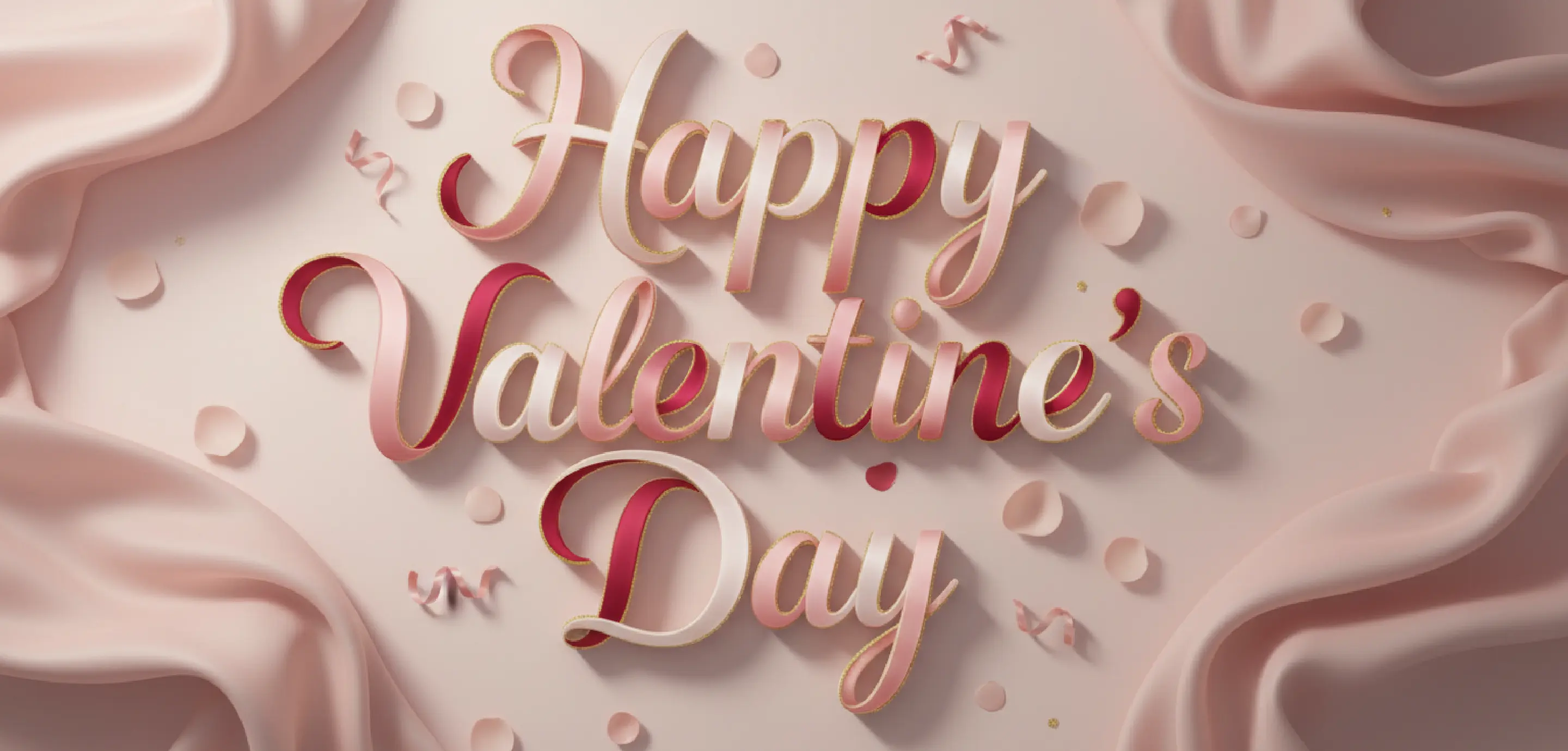
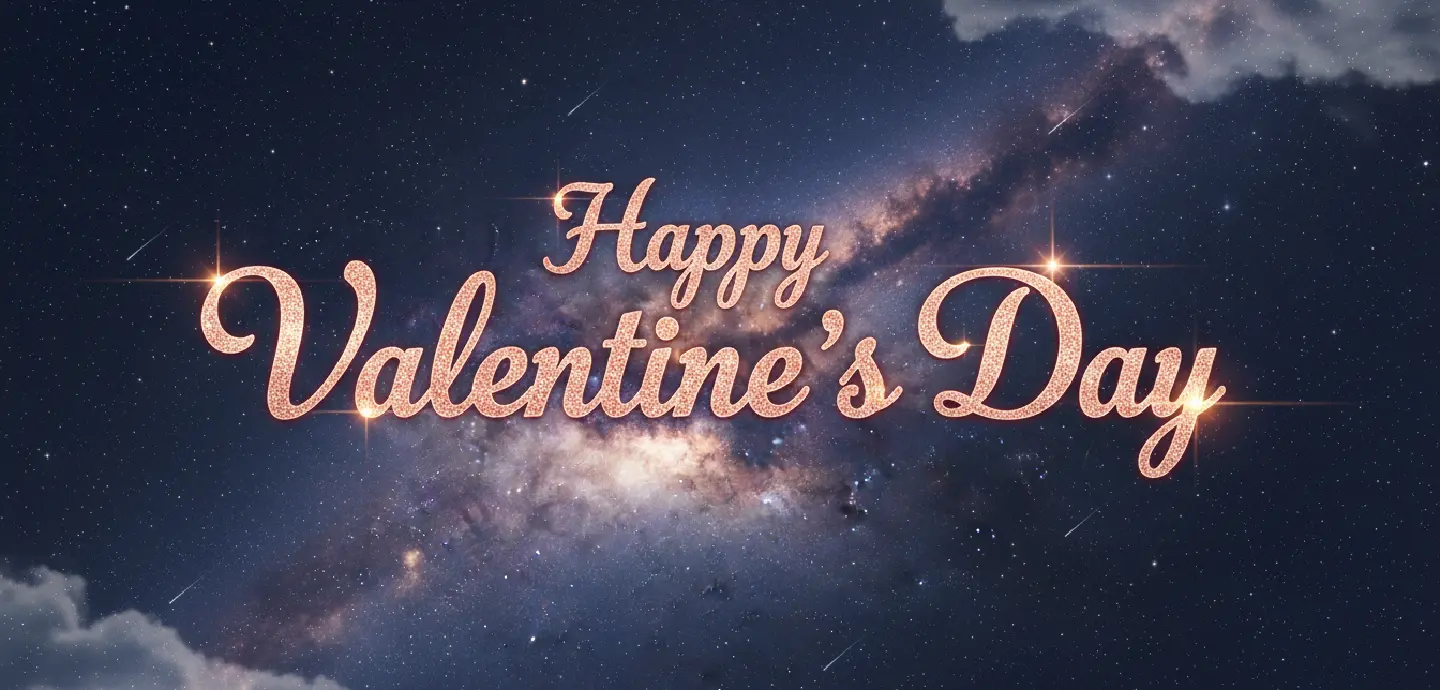
Bring your romantic ideas to life with beautifully crafted font styles that match classic Valentine message themes—elegant calligraphy, soft script, rose motifs, and cozy handwritten aesthetics. Our AI generator makes it effortless to explore and customize unique Valentine's Day messages, helping you design the perfect Valentine letter or valentine's day card messages with endless creative possibilities.
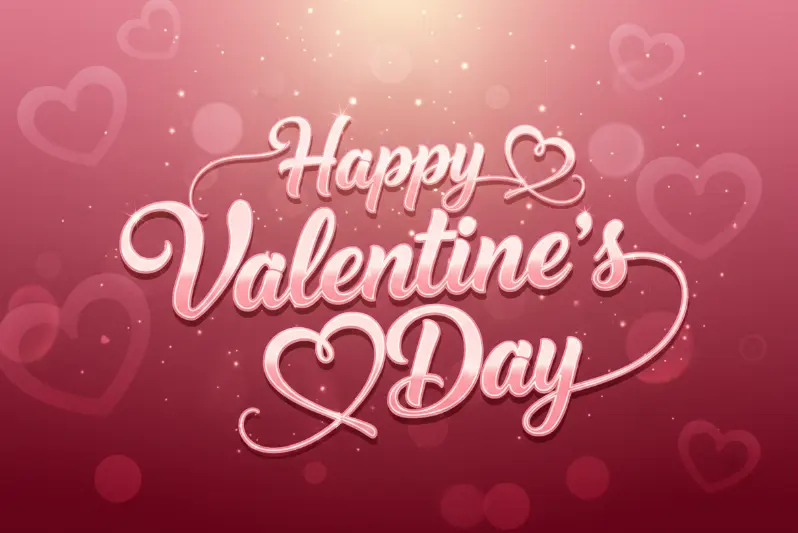
A radiant 3D script with candy-pink glossy textures and glowing heart accents. This playful style is perfect for a vibrant Valentine message, helping you design eye-catching valentine's day card messages for social media and digital ads.
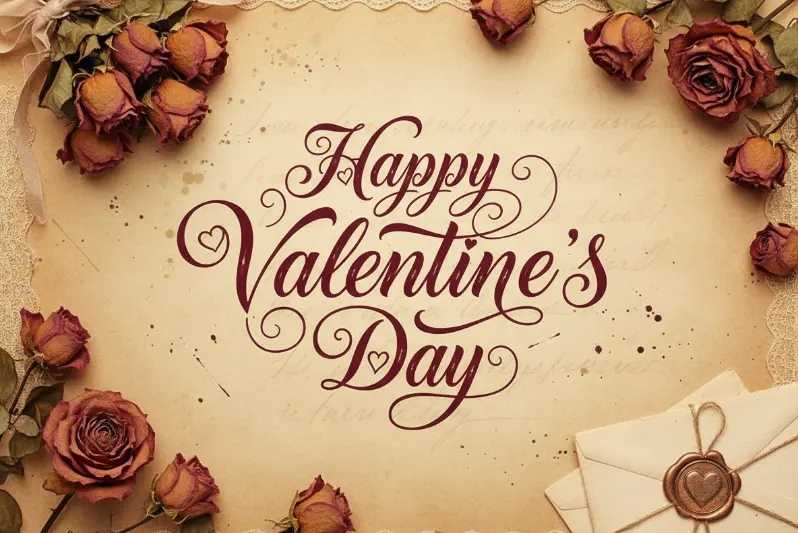
An elegant, ink-textured calligraphy script inspired by vintage romance. It is the ideal choice for a sincere Valentine letter, bringing a timeless and classic touch to all your Valentine's Day messages and printed stationery.
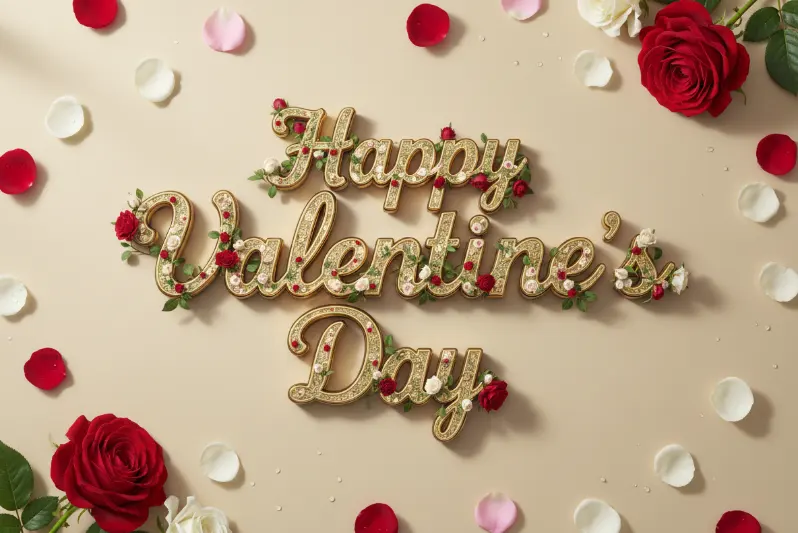
A premium 3D gold-textured font elegantly entwined with blooming rose vines. Elevate your Valentine's Day messages with this luxurious style, perfect for creating high-end valentine's day card messages and premium gift packaging.
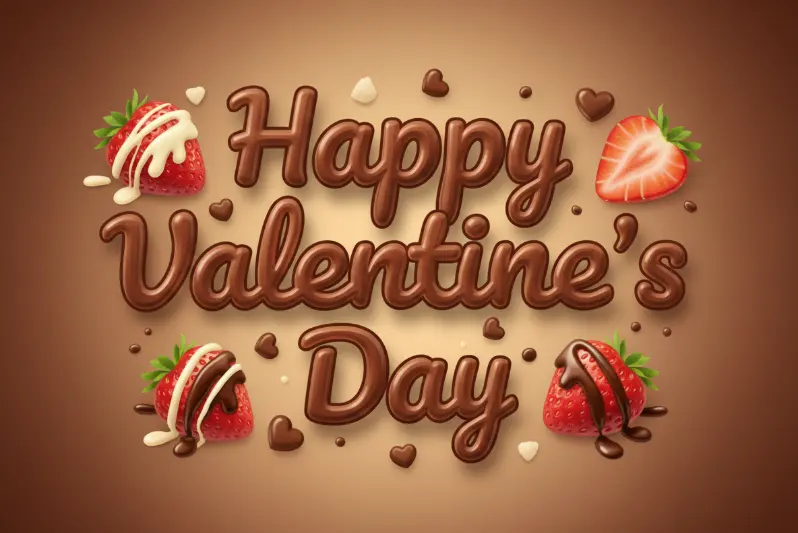
A delicious 3D font crafted with smooth melting chocolate and realistic strawberry accents. This tempting style is perfect for a sweet Valentine message, adding a mouth-watering touch to your valentine's day card messages and dessert menus.
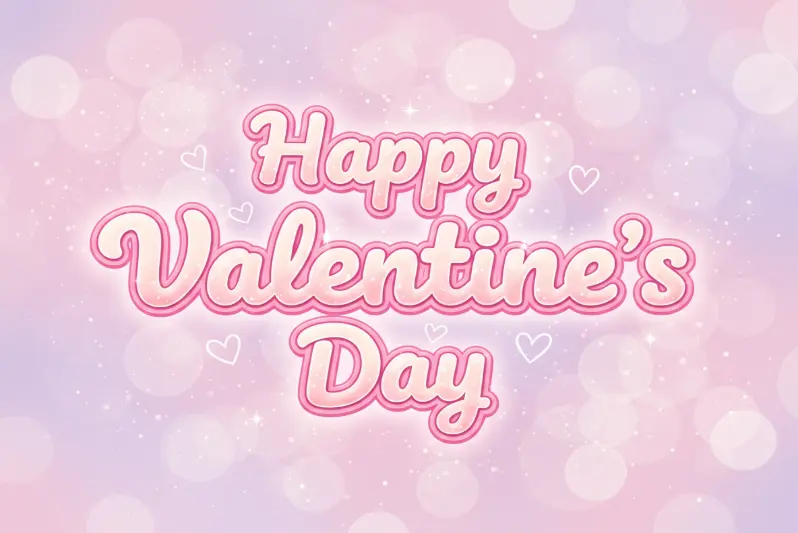
A whimsical 3D font featuring soft pink-to-purple gradients and a playful bubbly texture. It’s a fantastic choice for cheerful valentine's day card messages, helping you create a dreamy and creative Valentine message for any digital project.
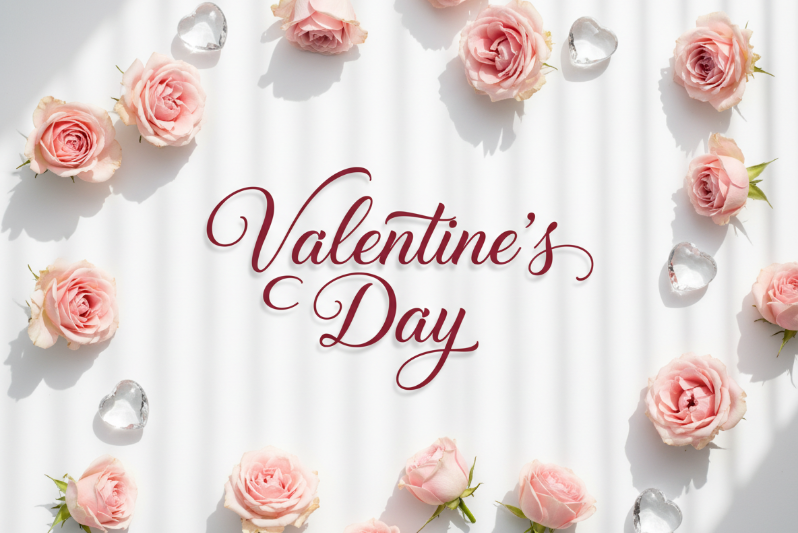
A minimalist, elegant script font surrounded by fresh pink roses. This bright and clean style brings natural beauty to every Valentine letter, making it an ideal choice for sophisticated Valentine's Day messages and modern lifestyle blogs.
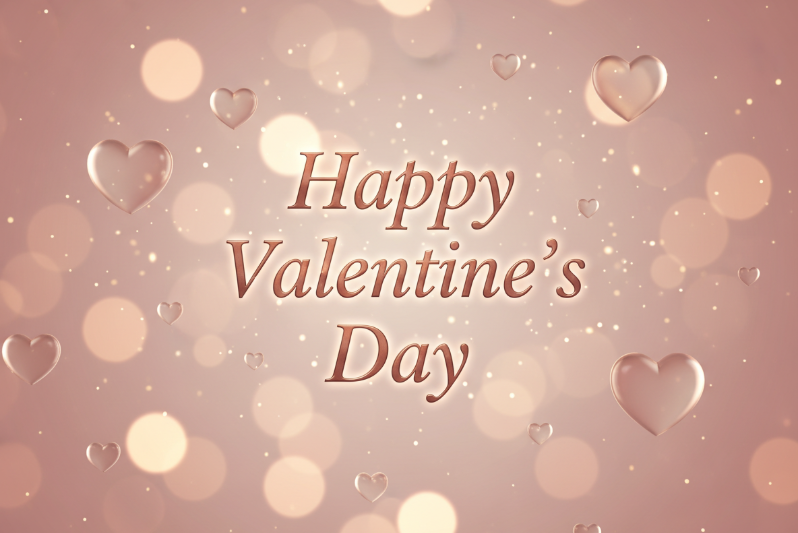
A luxurious rose-gold font surrounded by translucent crystal hearts and soft bokeh lighting. This refined aesthetic is the premier choice for a formal Valentine letter, adding a high-end feel to your professional Valentine's Day messages.
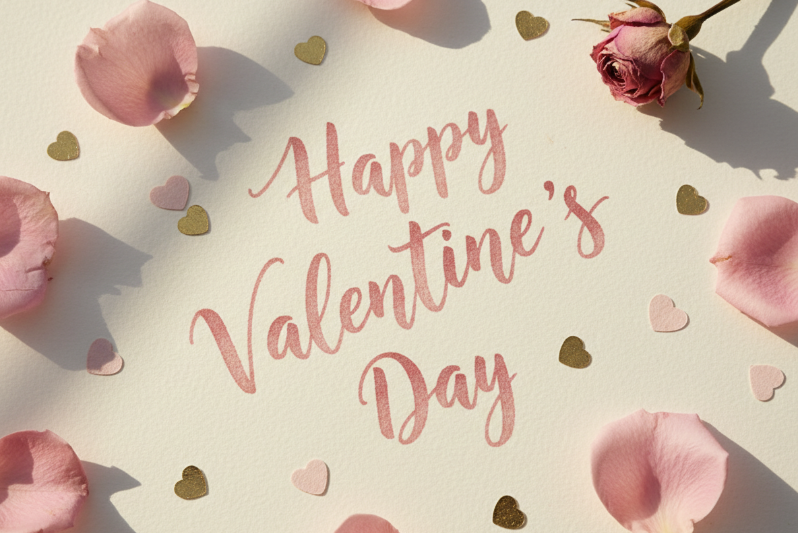
A charming Font featuring soft watercolor textures and delicate petal accents. This gentle style is perfect for creating a heartfelt Valentine message, adding a touch of natural elegance to your valentine's day card messages and romantic social media stories.
A cute 3D bubble font designed for romance. It's the perfect tool for styling a sweet Valentine message or designing creative Valentine's Day card messages. From digital Valentine letters to social media posts, this pastel-toned font brings a playful, dreamy vibe to every heartfelt expression.
Create a stunning Valentine message with Night Glow. This elegant neon script font is ideal for modern Valentine letters and high-end Valentine's Day card messages with a city-vibe. Its flowing, luminous strokes capture the magic of a romantic night out, making your designs stand out.